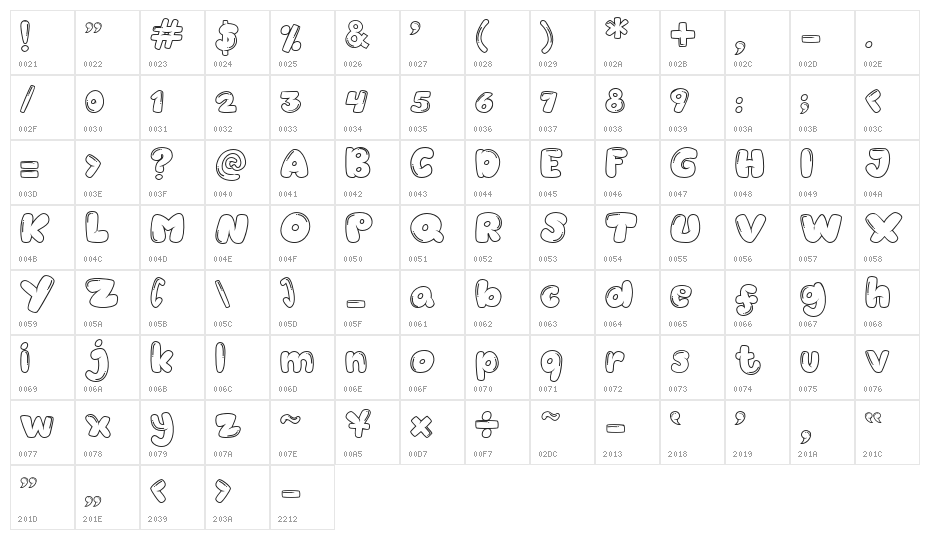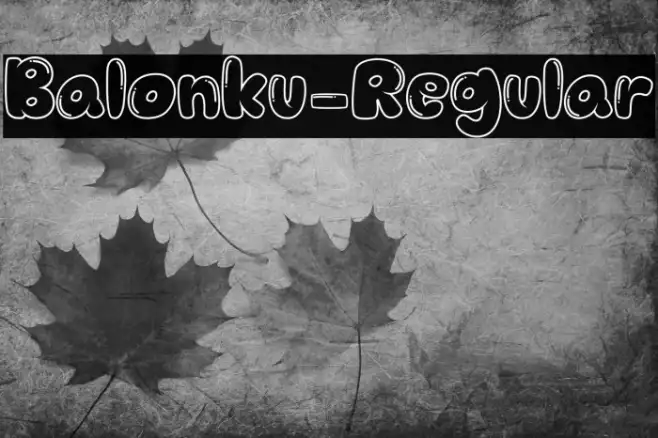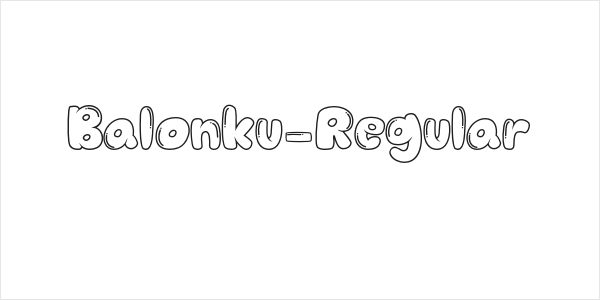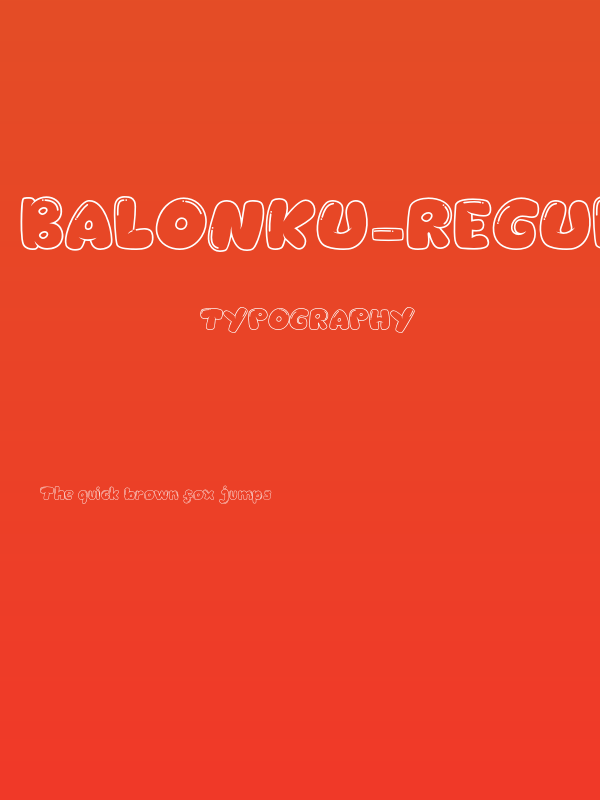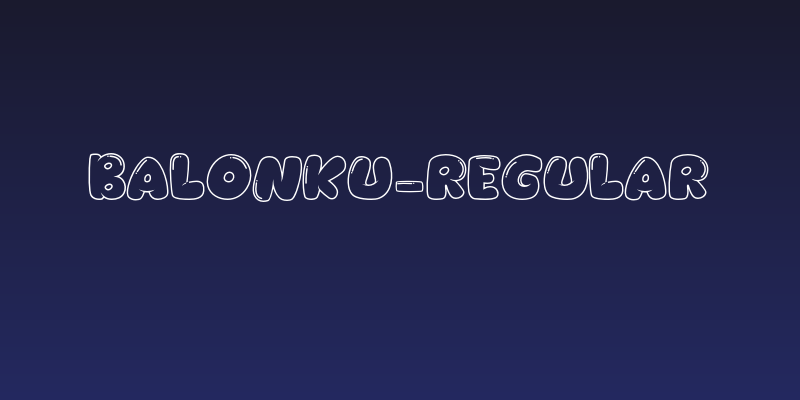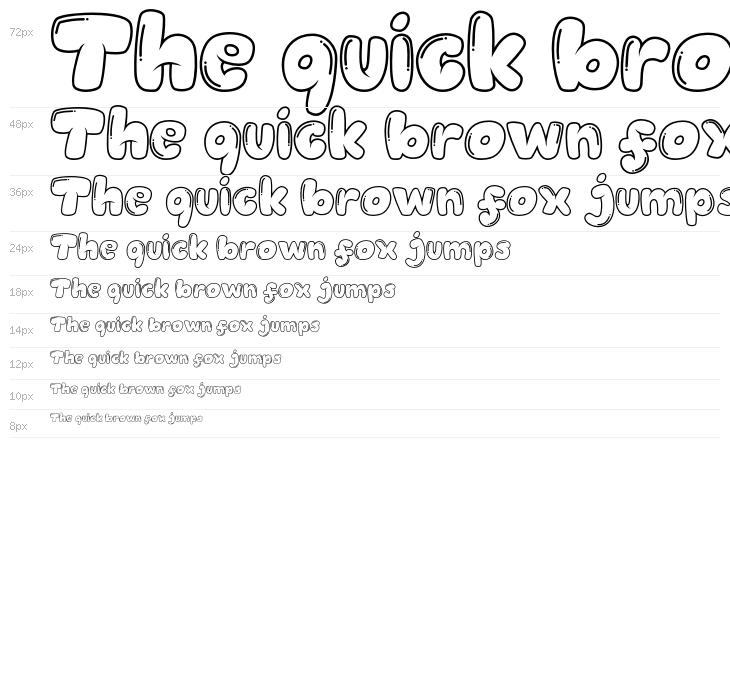
Balonku-Regular Font
Balonku-Regular Description
This playful and whimsical font features bold, rounded characters with a cartoonish outline that gives it a fun and approachable appearance. Each letter is designed with a consistent thickness, creating a uniform look across both uppercase and lowercase letters. The numbers and special characters maintain the same playful style, making this font ideal for projects that require a lighthearted and informal touch. Its bubbly and inflated design makes it stand out, perfect for capturing attention in creative and child-friendly contexts.
| Proposed Projects | Ideal for children's books, party invitations, playful branding, and educational materials. |